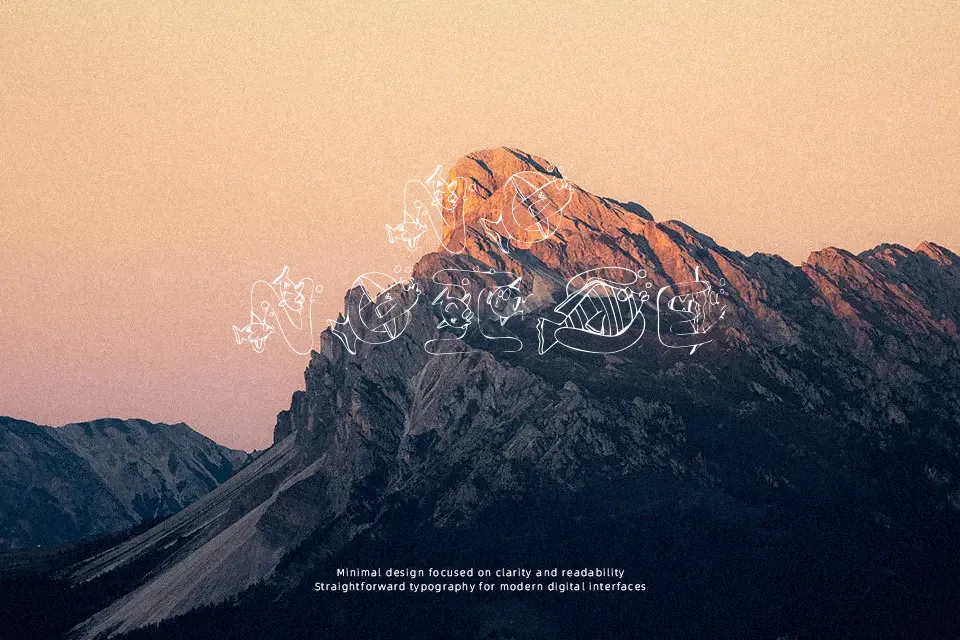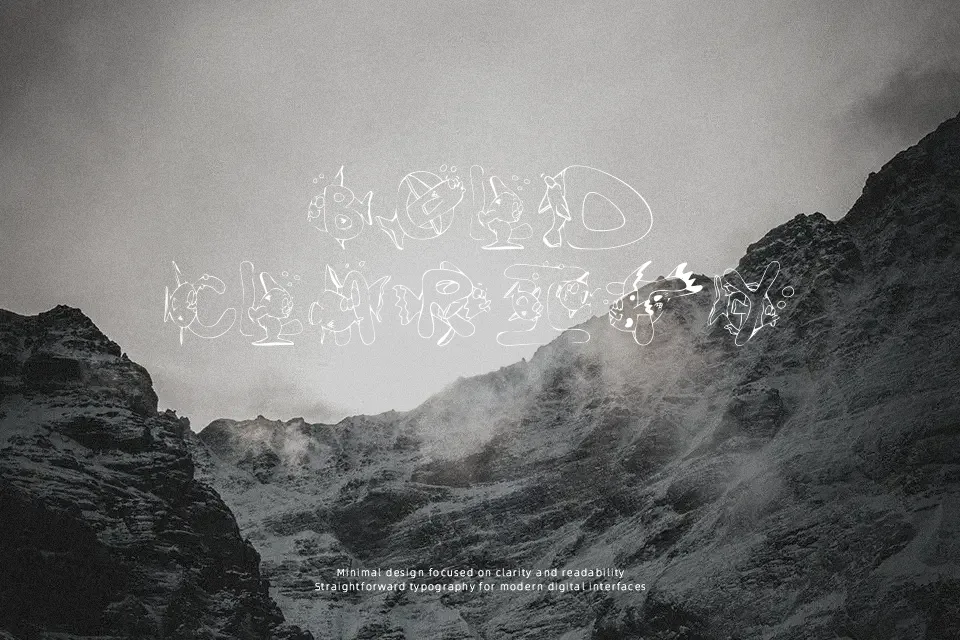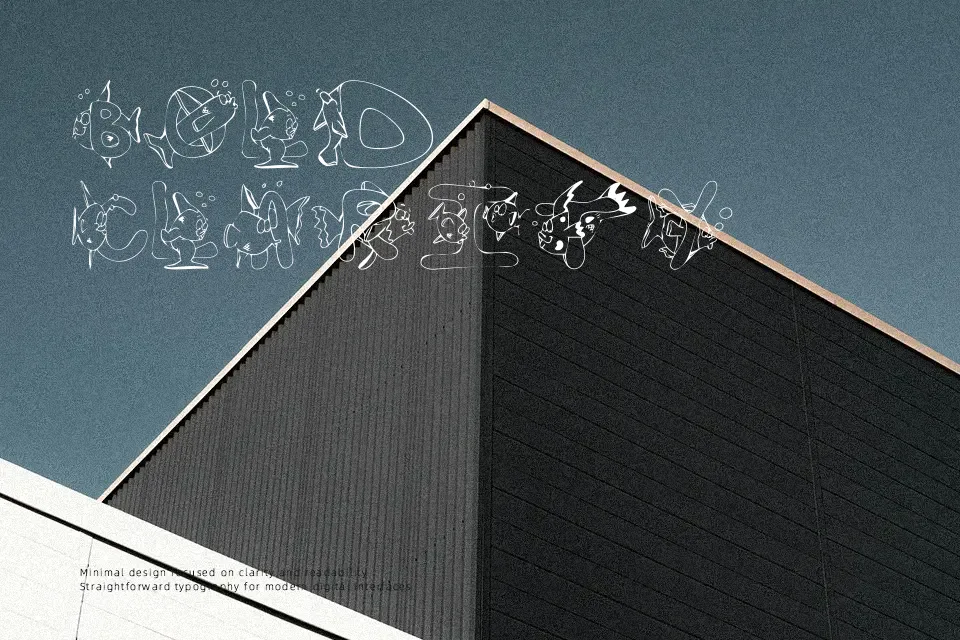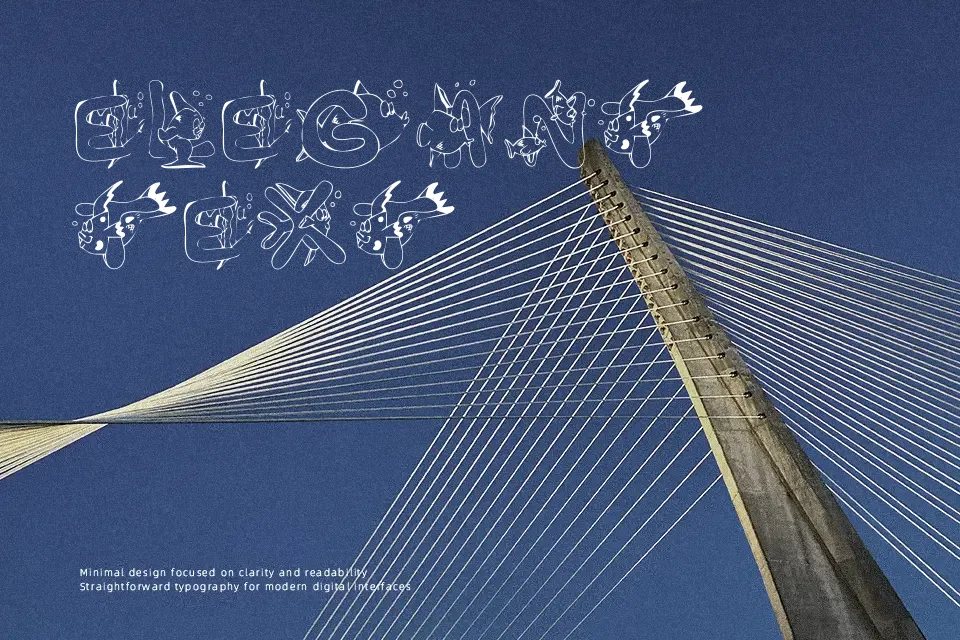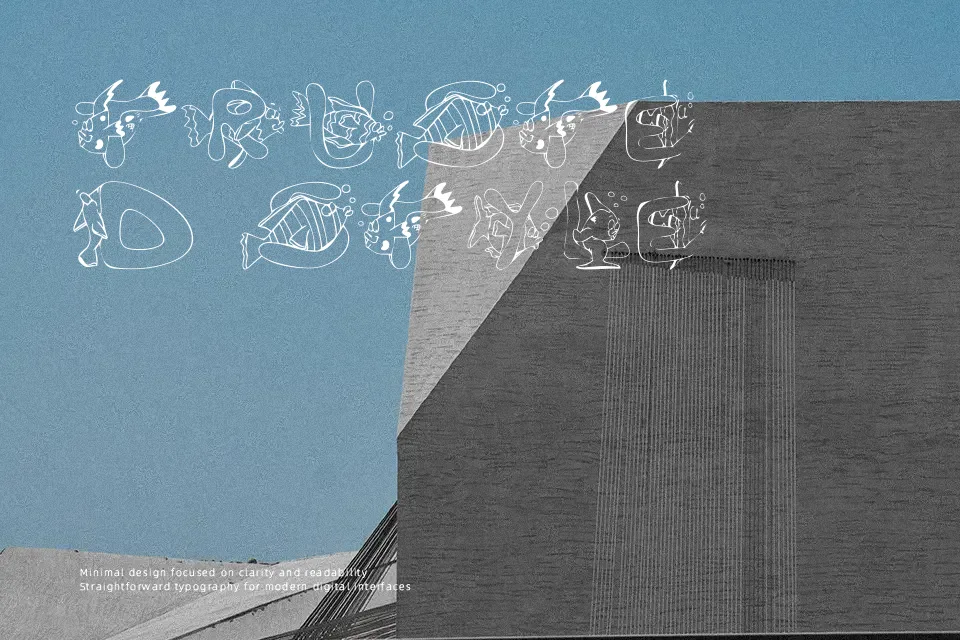
KR Seems Fishy To Me Font
There’s a slightly odd, almost suspicious charm in how this font leans into irregular strokes and uneven spacing. The letterforms feel loose and intentionally inconsistent, giving it a hand-drawn, comedic tone that stands out in playful designs. It fits well on meme captions, joke posters, or quirky product packaging where personality matters more than precision. However, readability drops quickly in longer lines, especially at smaller sizes. It performs best when used sparingly as a headline font, but struggles in structured layouts or anything requiring a clean, professional appearance.
meme-style graphics
humorous poster headlines
quirky social media posts
formal branding
Perfect for headline, kids, and poster, with a creative and cartoon style.